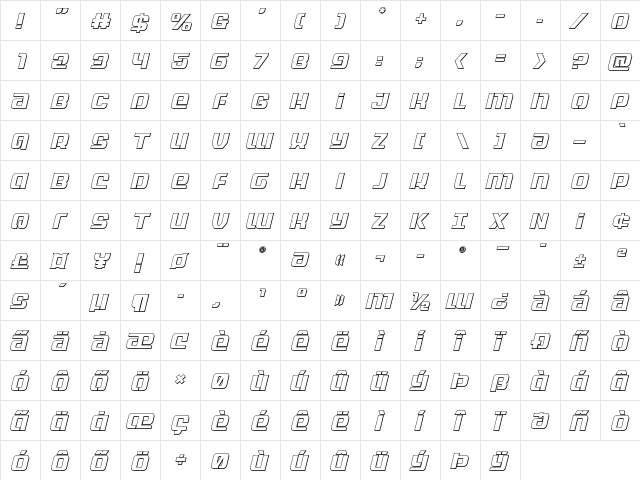
Globe Trekker Outline Italic Outline Italic
Design Context for Globe Trekker Outline Italic Typeface
Globe Trekker Outline Italic brings ornamental detail and strong personality to headlines and identities, where visual impact matters more than quiet functionality. The dynamic lean of this cut emphasises speed and emphasis in any layout.
Font Pairing: Pair with a clean neutral sans-serif for body copy to let Globe Trekker Outline Italic's character lead without overwhelming the composition.
Pro Tip: Treat Globe Trekker Outline Italic as the centrepiece of your typographic hierarchy. One strong heading set in a decorative face can carry an entire layout.